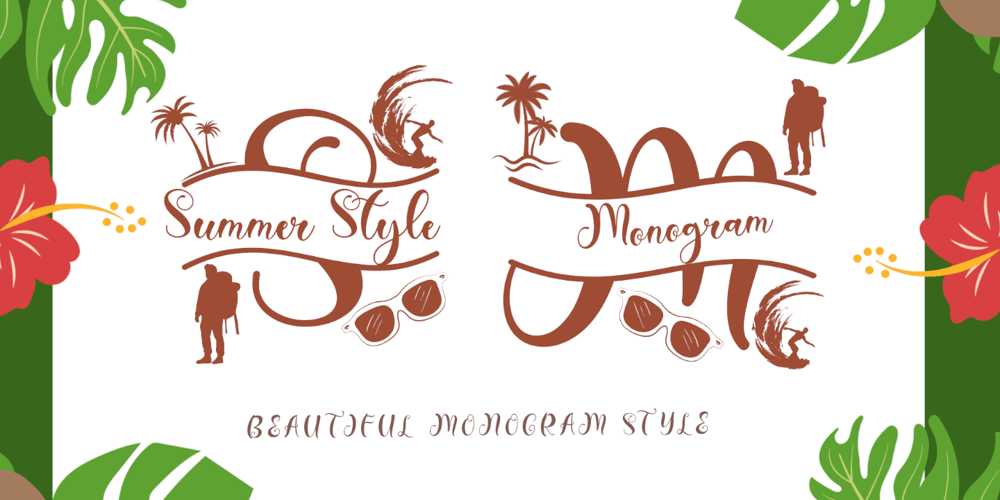
Summer Style Monogram Font Family was designed by Isroni Yoga Prasetya and published by Yoga Letter. Summer Style Monogram contains 2 styles and family package options. “Summer Style Monogram” is a unique and elegant monogram font. This font is equipped with monograms, uppercase, lowercase, ligatures, numerals, punctuations and multilingual support. Very suitable for banners, branding, stickers, summer, spring, holidays, vacations and others.